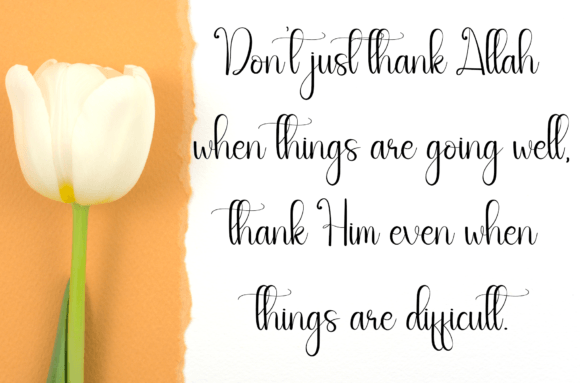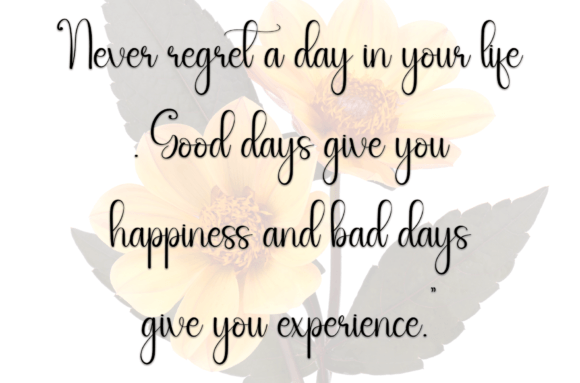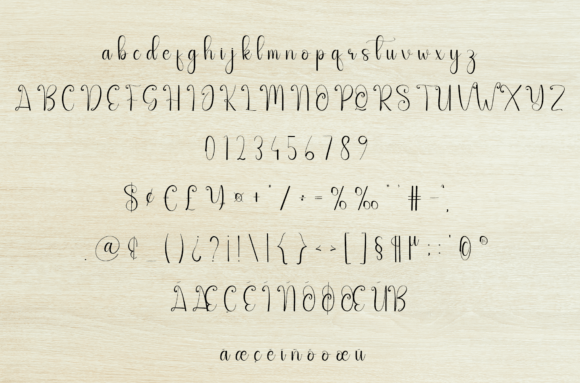
About Simple Mandala Font
A Sweet and Friendly Handwritten Font
The Simple Mandala Font is a sweet and friendly handwritten typeface that brings warmth and charm to any design. Its cute and relaxed style makes it perfect for a variety of projects that require a personal, fun touch. Whether you’re working on wedding invitations, greeting cards, or other creative designs, this font adds a unique, inviting flair that makes your work stand out.
Perfect for Wedding Invitations and Special Events
If you’re designing wedding invitations, thank you cards, or other special event stationery, the Simple Mandala Font is a perfect choice. Its friendly, handwritten design adds a personal and charming touch to your invitations, making them feel special and memorable. Whether it’s for a wedding, birthday party, or baby shower, this font ensures your designs are both elegant and fun.
Ideal for Greeting Cards and Personalized Messages
The Simple Mandala Font is ideal for creating greeting cards, thank you notes, or holiday messages. Its relaxed style is perfect for creating warm, personal messages that resonate with your audience. Whether you’re designing for Christmas, Valentine’s Day, or any other occasion, this font adds a heartfelt, handwritten touch to your creations, making them feel unique and sincere.
Great for Fun and Creative Projects
Beyond invitations and cards, the Simple Mandala Font is perfect for a variety of creative projects. Whether you’re designing logos, business cards, posters, or social media graphics, this font brings a playful and friendly vibe to your designs. Its simple, relaxed style makes it ideal for branding, children’s books, product packaging, and other projects that need a personalized and charming touch.
Versatile for Multiple Design Applications
The Simple Mandala Font is incredibly versatile, making it suitable for many different design applications. Whether you’re working on flyers, website headers, advertisements, or stationery, this font adapts to various needs. Its cute and casual elegance makes it perfect for both business and personal projects, ensuring your designs feel both unique and professional.
Cute, Relaxed, and Legible
Despite its cute and relaxed nature, the Simple Mandala Font maintains legibility and clarity. Its smooth lines and balanced structure ensure that your text is easy to read, even when used for longer text passages or smaller text sizes. Whether you’re creating headlines, captions, or full paragraphs, this font ensures your designs look clear and polished, while maintaining its friendly charm.
Add a Fun Touch to Your Designs with Simple Mandala Font
If you’re looking for a friendly, playful handwritten font to add a personal touch to your designs, the Simple Mandala Font is the perfect choice. Whether you’re designing wedding invitations, greeting cards, logos, or social media posts, this font brings warmth, elegance, and fun to your projects. Make your designs stand out with the Simple Mandala Font and give every project a unique, inviting look.